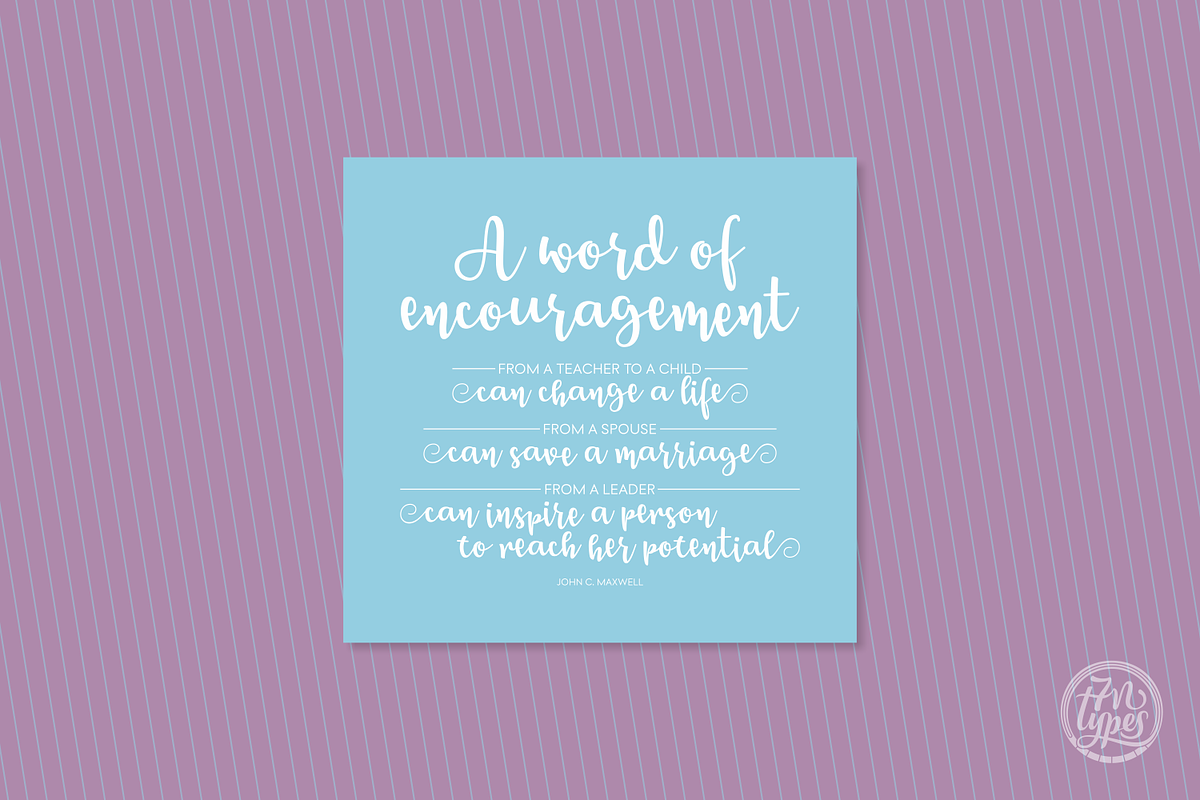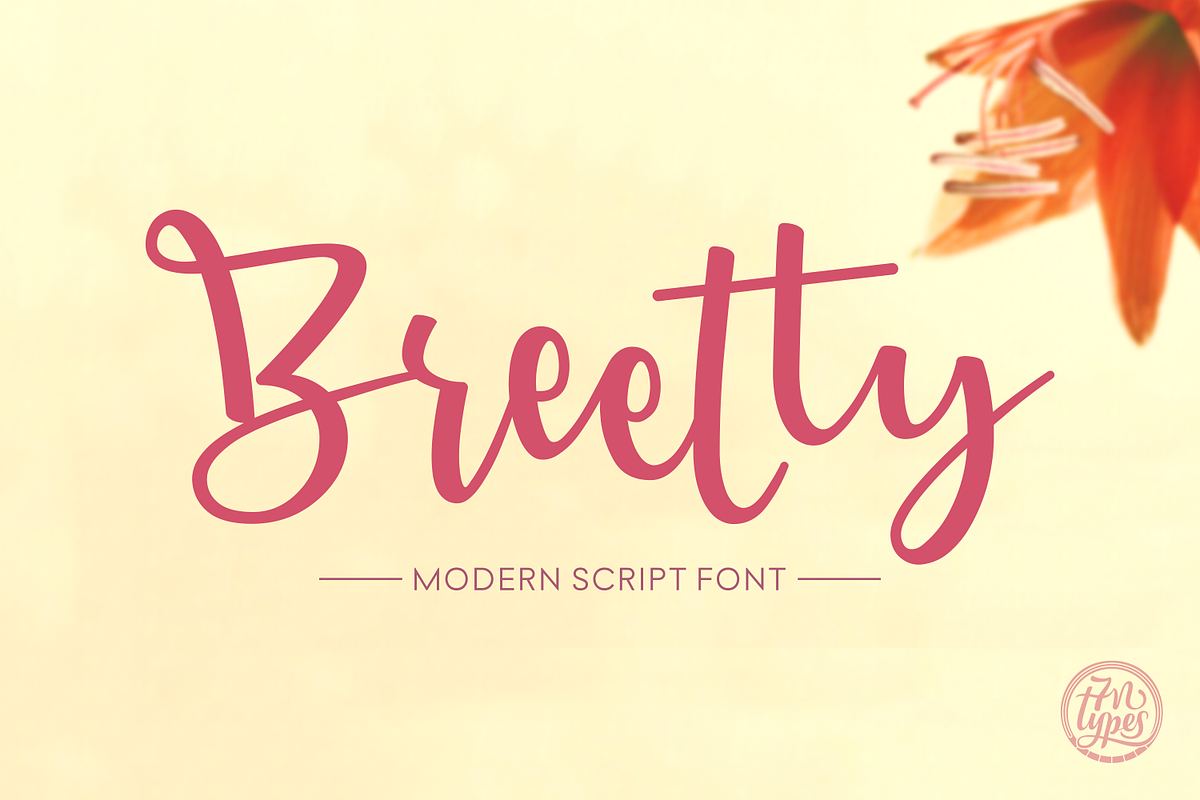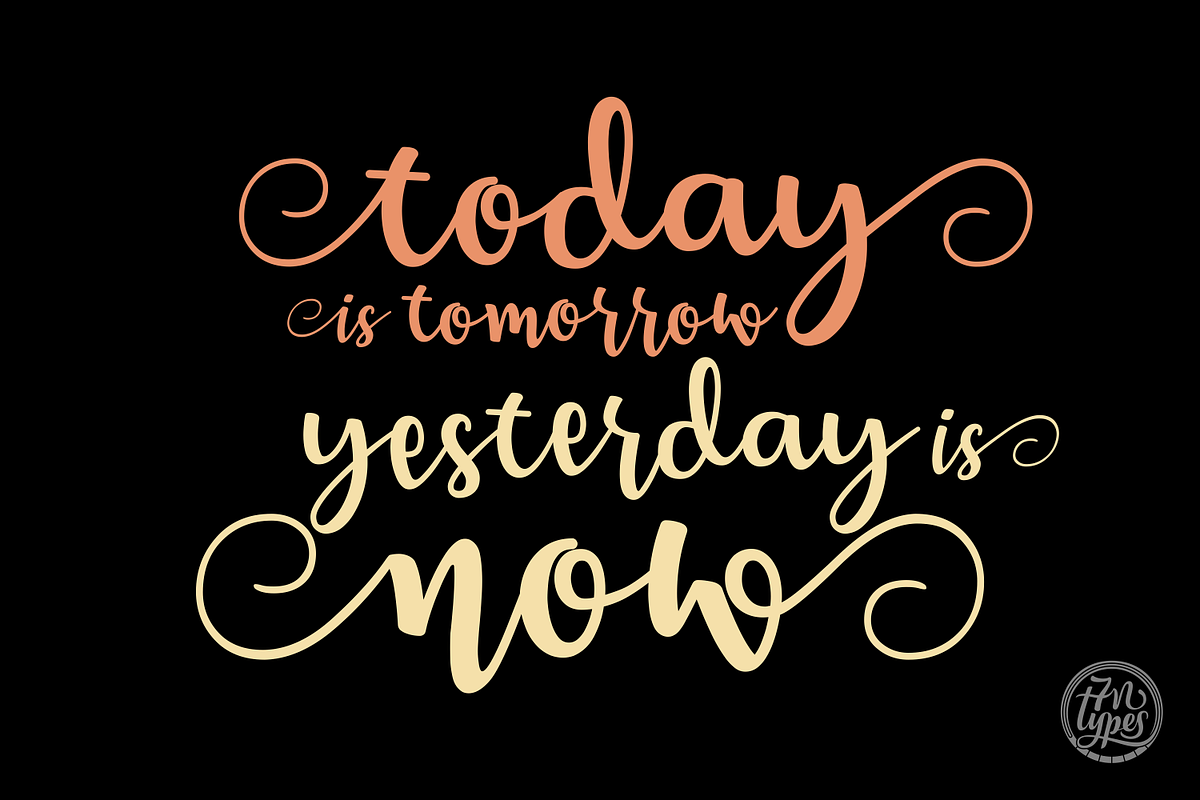
Breetty Font
Breetty is a fun, playful script font created by Situjuh Nazara. The Breetty font, that comes in 2 variations (Regular and Italic), offers an extensive range of glyphs and characters with (PUA encoded) swashes. This makes Breetty a versatile type that can be used in many different projects that require a personal touch.
Why Breetty Font is worth a look
Breetty Font by 7NTypes fits naturally into Branding, posters, packaging, typography.